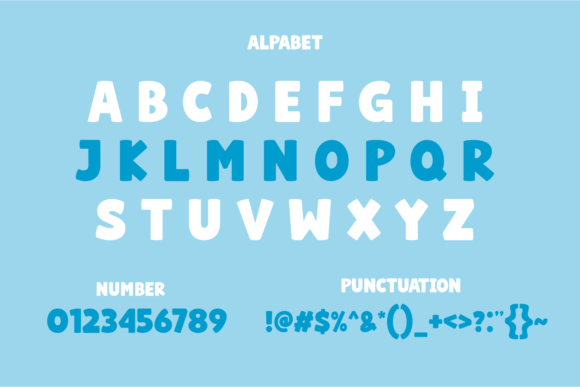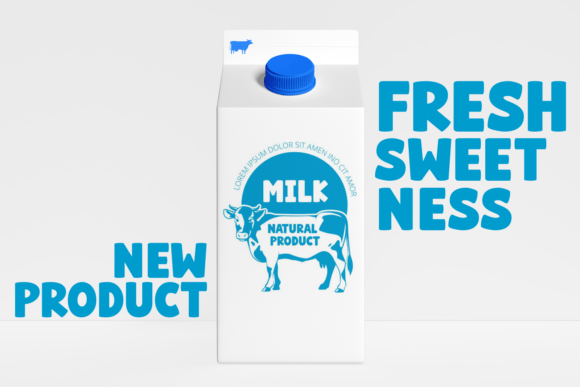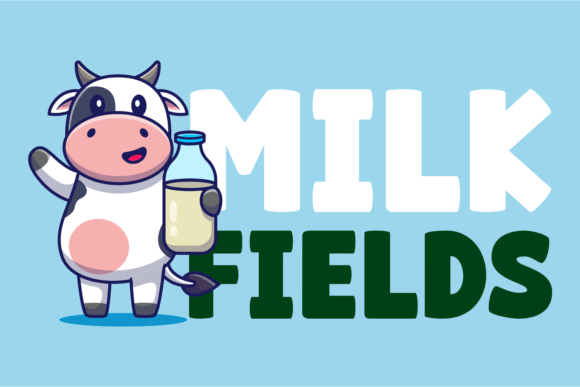
Milk Fields Font
Milk Fields Font is a bold and eye-catching display font with thick, smooth letters. It’s perfect for titles, logos, and designs that need to stand out. The letters are easy to read and have a modern, playful look.